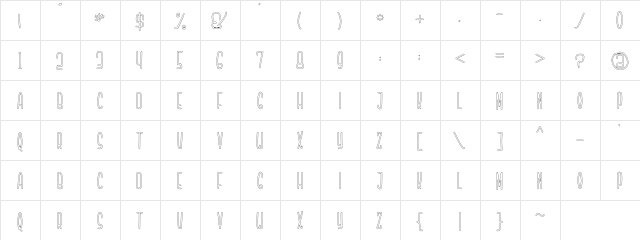
Highdream Outline
Design Context for Highdream Typeface
Highdream is built around its visual character rather than neutral utility — its distinctive forms are designed to make an impression at display sizes.